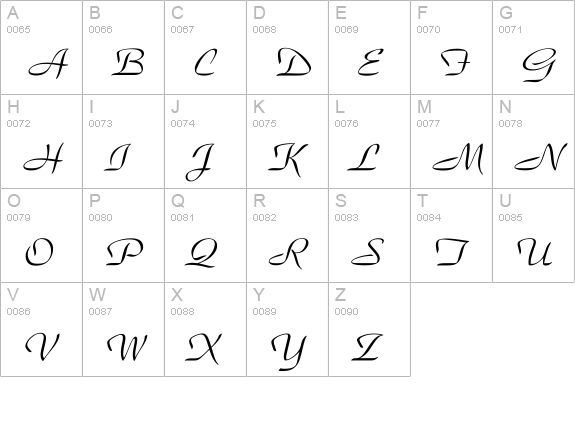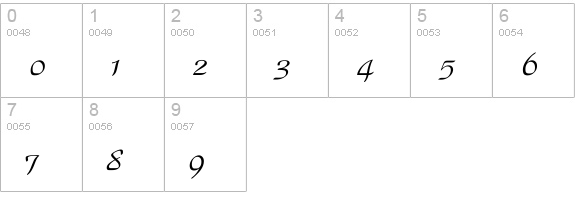
SnootyfaceBT-Regular Font Details
SnootyfaceBT-Regular is the standard, neutral variant in the SnootyfaceBT typeface family \xE2\x80\x94 well suited to general body text, paragraphs, and standard typographic work.
Introducing SnootyfaceBT-Regular font, the epitome of elegance and sophistication. This exquisite typeface is perfect for adding a touch of class to any design project. With its delicate curves and refined lines, SnootyfaceBT-Regular exudes an air of exclusivity that is sure to captivate your audience. But what sets SnootyfaceBT-Regular apart from other fonts is its versatility. Whether you're designing a high-end fashion magazine, creating a chic wedding invitation, or crafting a luxurious brand logo, this font has the ability to elevate any design to new heights. And the best part? SnootyfaceBT-Regular is absolutely free! That's right, you can download this stunning font at no cost from FontsMarket.com. We believe that great design should be accessible to all, and SnootyfaceBT-Regular embodies that belief perfectly. So why wait? Enhance your design projects with the timeless beauty of SnootyfaceBT-Regular font today. Download it for free at FontsMarket.com and let your creativity soar!